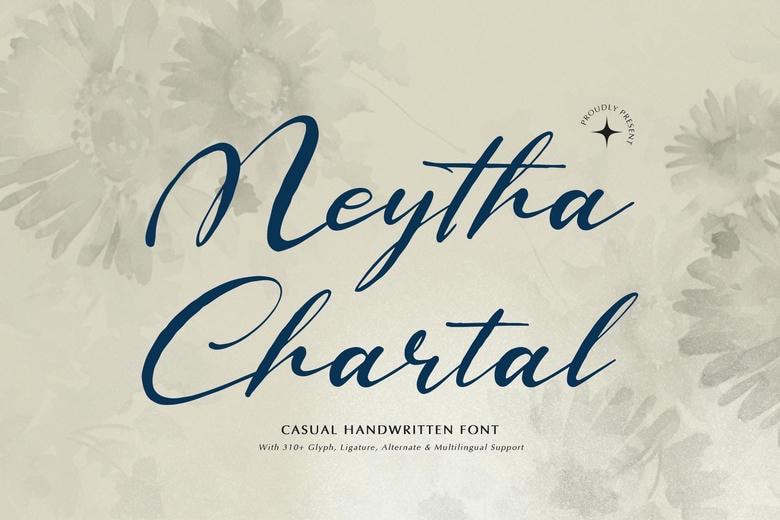
Meytha Chartal Font
Meytha Chartal is a fluent and fancy handwritten typeface, a mixture of casual style and natural brush pen feeling. This font is so wedding inspired and is best used with some wedding and quote wishes, branding, stationery and so on. Having more than 310 glyphs bringing with them alternatives as well as ligatures and multilingual capabilities, Meytha Chartal is beautiful and flexible to use in your creative work.
Meytha Chartal Handwritten Script Font